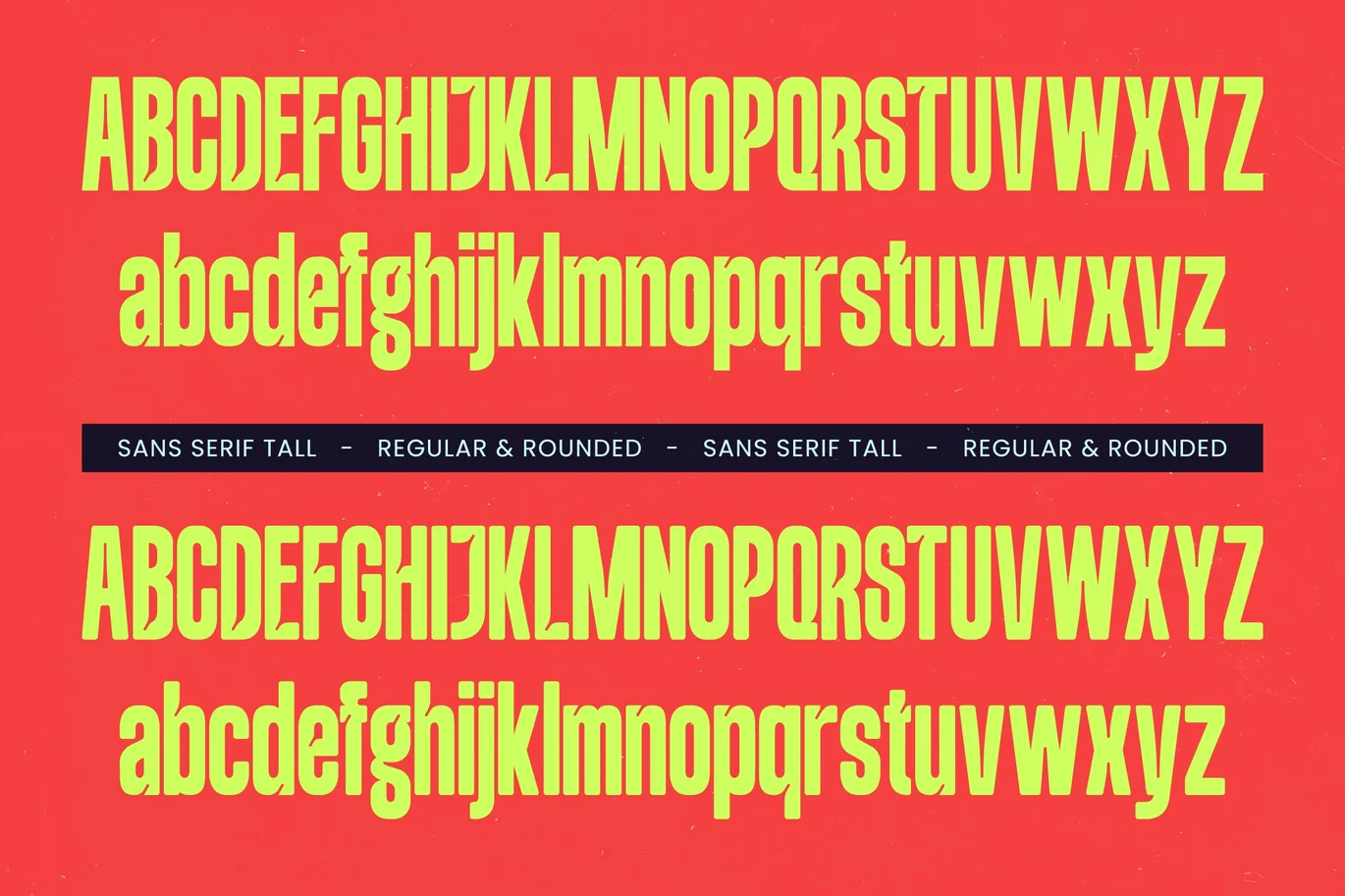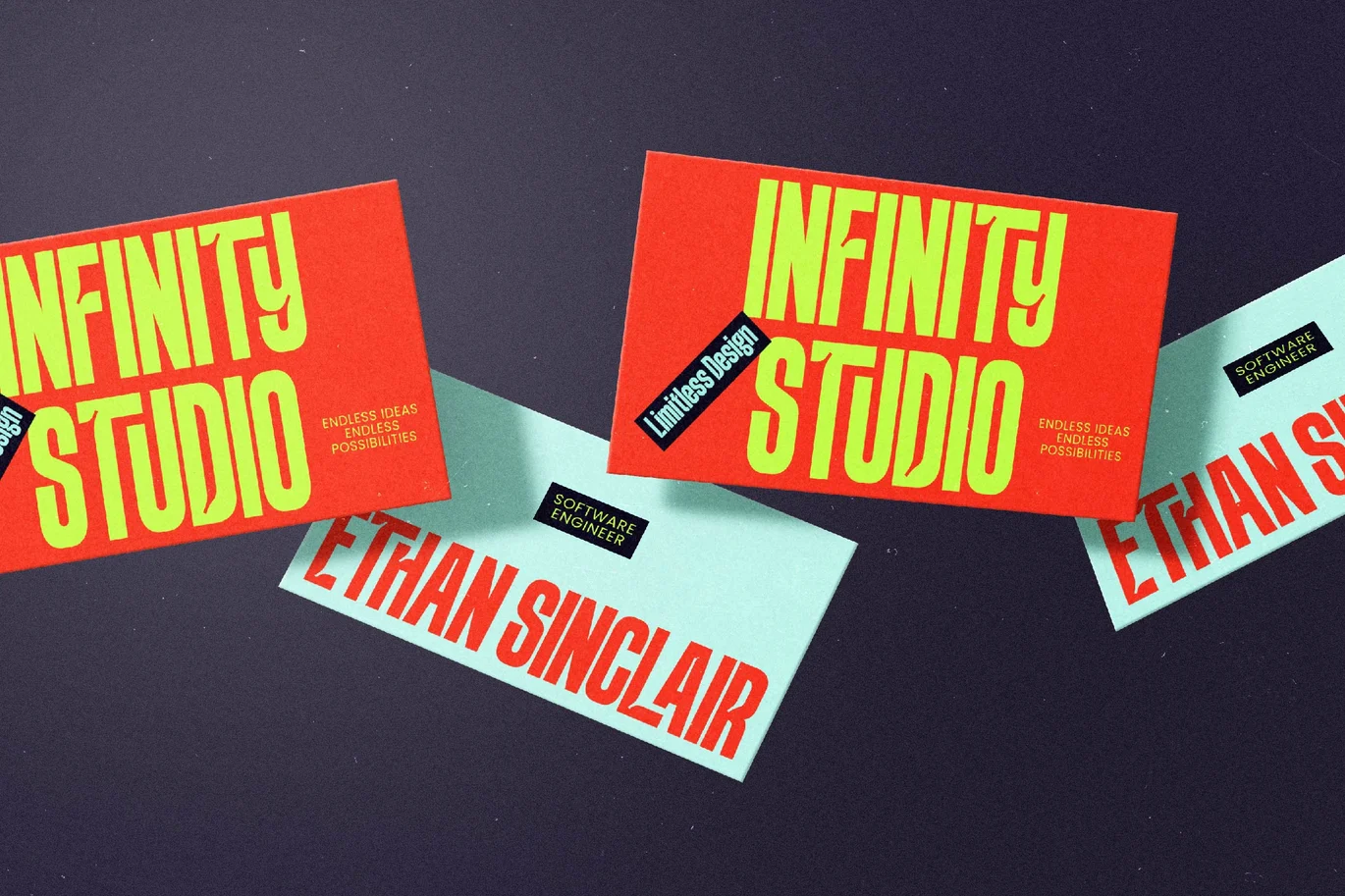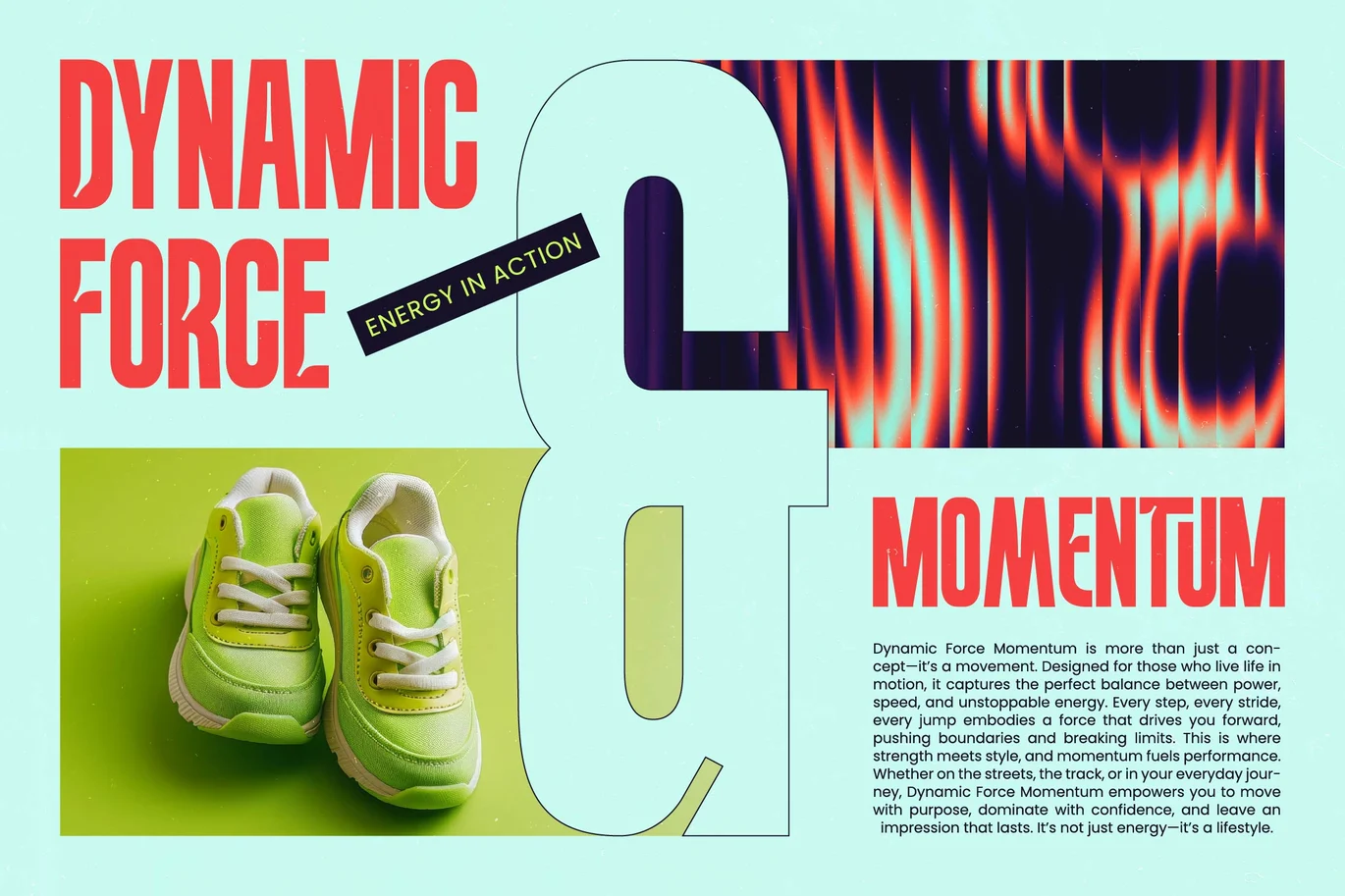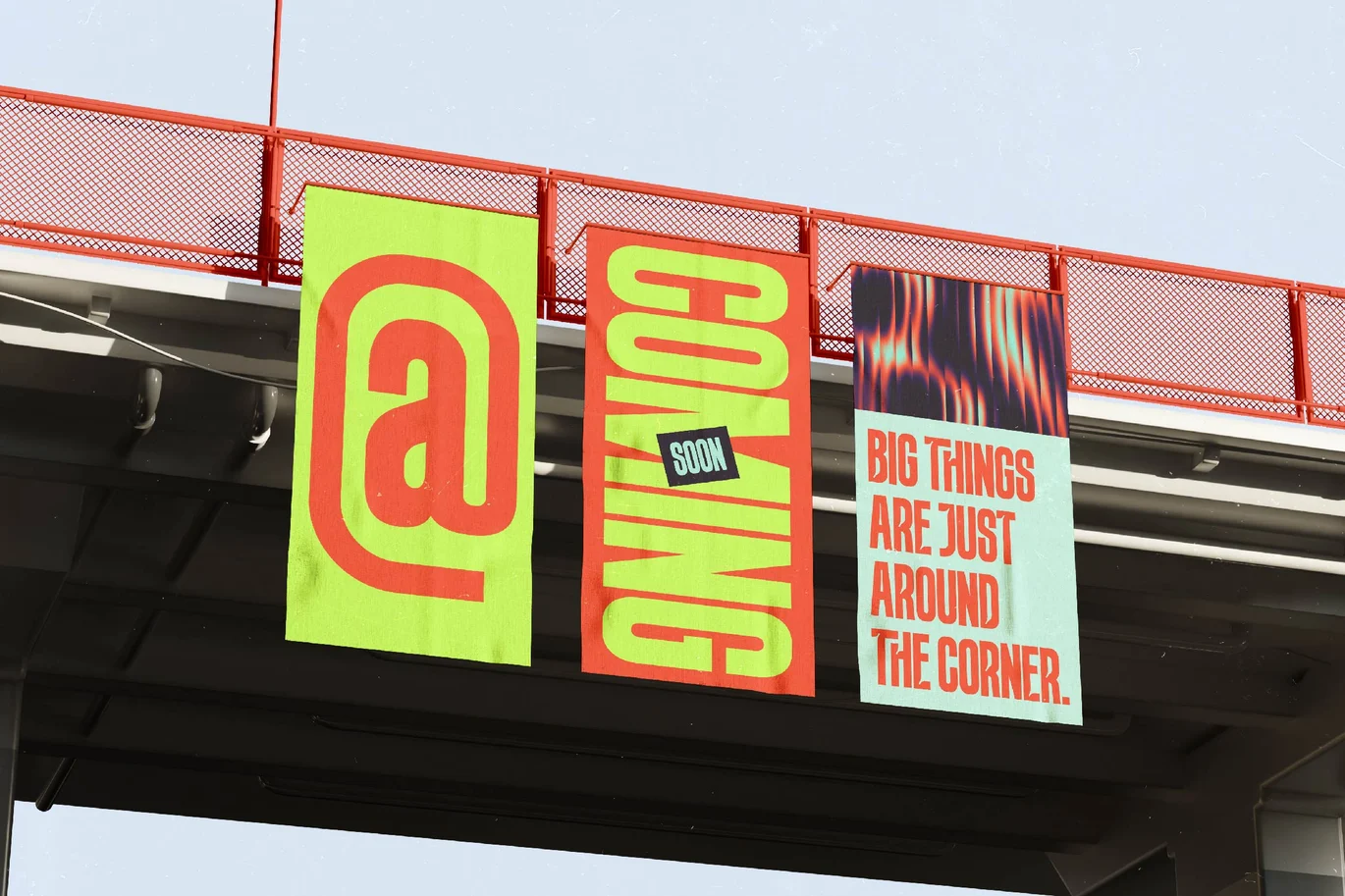
Beqarins – Sans Serif Tall Font
Beqarins – Sans Serif Tall
Elevate your visual identity with a font that demands attention through its striking vertical presence. Beqarins – Sans Serif Tall is a masterclass in modern display typography, featuring an ultra-condensed silhouette that exudes confidence and authority. Designed for creators who refuse to blend into the background, this typeface balances geometric precision with a contemporary edge, making it an essential tool for any high-impact project.
Experience unparalleled creative flexibility with a robust set of OpenType features that allow for deep customization. With its extensive multilingual support, Beqarins – Sans Serif Tall adapts seamlessly across global markets, making it incredibly versatile for international projects. The inclusion of 17 unique ligatures and 13 stylish alternates ensures that every headline remains distinct, providing a bespoke aesthetic that is both professional and visually captivating.